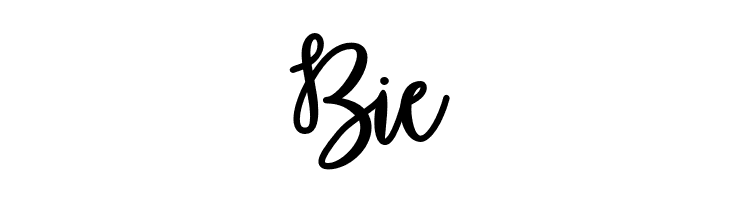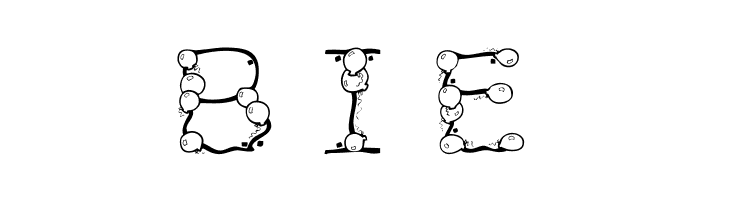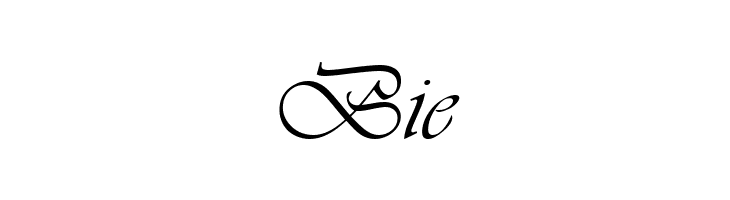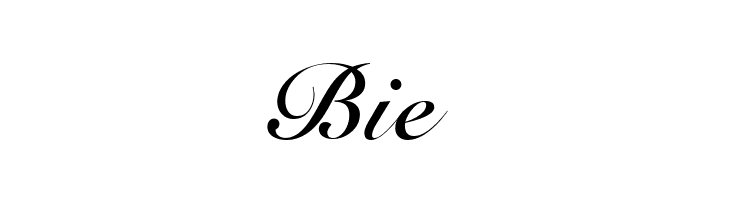
A playful, handwritten script font with interconnected letters and moderate stroke thickness.
An elegant calligraphy font with fluid, interconnected strokes and ornate flourishes.
A graceful script font with flowing, interconnected letters and elegant curves.
A bold, cursive font with playful, interconnected strokes and high contrast.
A playful, balloon-inspired decorative font with interconnected circular shapes.
A modern, loop-based font with interconnected circular designs.